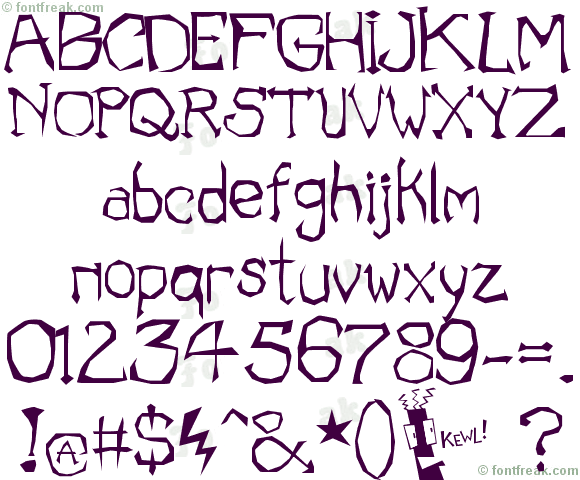
ILL oMen
About Ill oMen
The Ill oMen font by Kees Gajentaan is an intriguing display typeface that captivates with its unique character and flair. This font showcases a striking balance between readability and artistic expression, making it an ideal choice for a variety of creative projects. The design features a bold stroke weight that lends itself to a commanding presence, while the subtle contrast between thick and thin lines adds depth and visual interest. The spacing is thoughtfully executed, allowing for a harmonious flow that enhances legibility without compromising on style. Decorative elements are integrated seamlessly, giving the font an air of sophistication and intrigue.
Best suited for eye-catching designs, the Ill oMen font excels in various applications. It can be effectively used for movie posters that aim to evoke a sense of mystery or drama, making it perfect for thrillers and fantasy genres. Additionally, its distinctiveness makes it an excellent choice for branding materials, including logos and packaging for artisanal products. Wedding invitations can benefit from its artistic flair, adding a unique touch to special occasions, while restaurant menus can use this font to convey a trendy and upscale vibe, enticing diners with its stylish presentation.
The target audience for the Ill oMen font includes graphic designers, small business owners, and content creators looking to elevate their visual communications. This font resonates well with those who seek to make a bold statement through their work.
What sets the Ill oMen font apart is its ability to blend artistic flair with functional design, making it both versatile and memorable. Available as a freeware, it invites designers and creatives to explore its potential without financial barriers. For those interested in enhancing their projects with this captivating typeface, the Ill oMen font free download is an opportunity not to be missed.